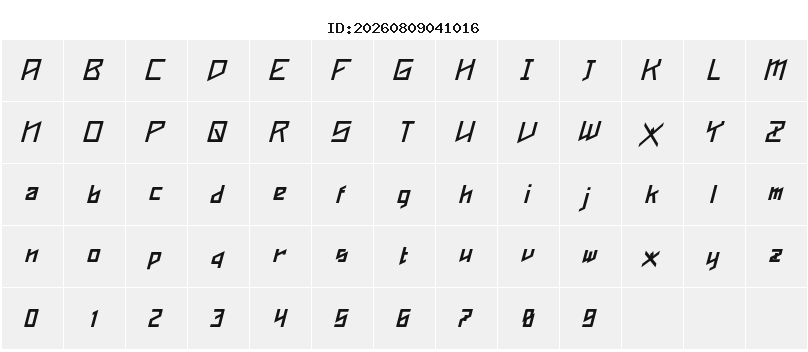
Phoenixians Preview
• Font Name: Phoenixians
• Full Font Name: Phoenixians Italic
• Version: Version 1.10 April 13, 2015
• Designer: Neale Davidson
About Phoenixians.otf
Phoenixians.otf is a modern, elegant sans-serif font designed for ultimate readability and visual harmony. Perfect for branding, headlines, web design, and print materials.